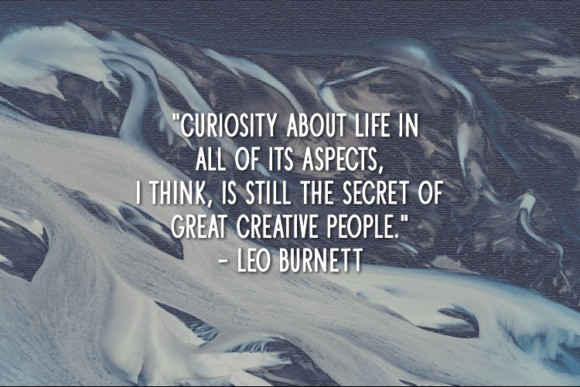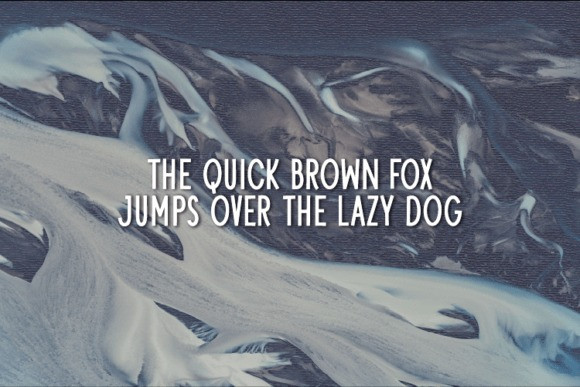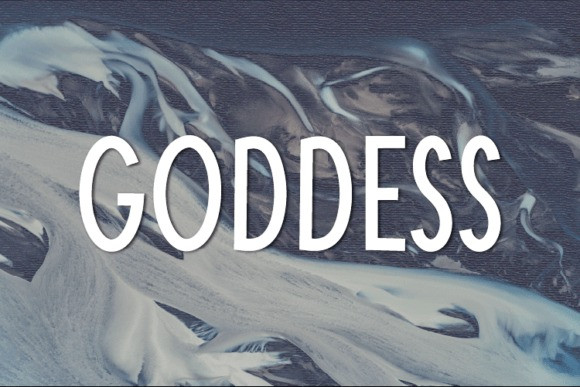
Goddess Font
Goddess Font is a friendly and cool handwritten font. This minimalist and clean vibe can easily apply to your favorite designs such as book covers, magazines, social media posts, invitations, and so much more!